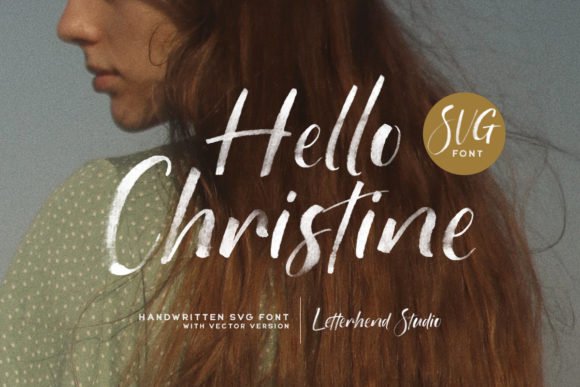
As designers, we’ve all been there – staring at a blank canvas, waiting for inspiration to strike. For me, it was a lazy Sunday afternoon, surrounded by papers and paint, when the idea of creating a unique handwritten font sparked to life. And so, Hello Christine Font was born – a delicate, whimsical font that captures the essence of a chalk-written note.
Perfect for adding a personal touch to wedding invitations, thank you cards, or even business logos, Hello Christine Font is a valuable addition to any designer’s toolkit. Its organic, handwritten feel makes it an instant favorite among creatives looking to add a touch of warmth and personality to their designs.
With its versatility and charm, Hello Christine Font is sure to become a go-to choice for designers seeking to infuse their work with a handwritten touch.
Hello Christine Font Key Features
- Font Family: Hello Christine, a script font designed by Laura Worthington.
- Unique Characteristics: Features elegant, flowing lines and subtle flourishes, making it perfect for creative and elegant designs.
Designer Review: Hello Christine Font
Hello Christine Font is a beautiful, elegant script font that shines ✨ with sophistication and refinement. Its flowing lines and organic feel evoke a sense of classic luxury, making it perfect for high-end branding, wedding invitations, or any project that demands a touch of glamour.
- ✨ Elegant and sophisticated, making it perfect for high-end branding and luxury projects
- ✨ Beautifully crafted with flowing lines and organic feel
- ✨ Wide range of language support, including Latin, Cyrillic, and Greek
However, there are some limitations to consider ⚠️:
- ⚠️ May not be suitable for projects that require a bold or sans-serif font
- ⚠️ Limited availability in certain font sizes, which can be a challenge for designers who prefer to work with a single font throughout their project
- ⚠️ Some characters may not display consistently across different devices and platforms
Overall, Hello Christine Font is a stunning script font that exudes elegance and sophistication. While it may have some limitations, its beauty and refinement make it a worthwhile choice for designers who want to add a touch of luxury to their projects.
Getting the Most Out of Hello Christine Font
To get the most out of Hello Christine Font, try combining it with bold or italic text for added emphasis. You can also use it in conjunction with other fonts to create a unique and eye-catching design.
Hello Christine Font is ideal for use in creative projects such as: